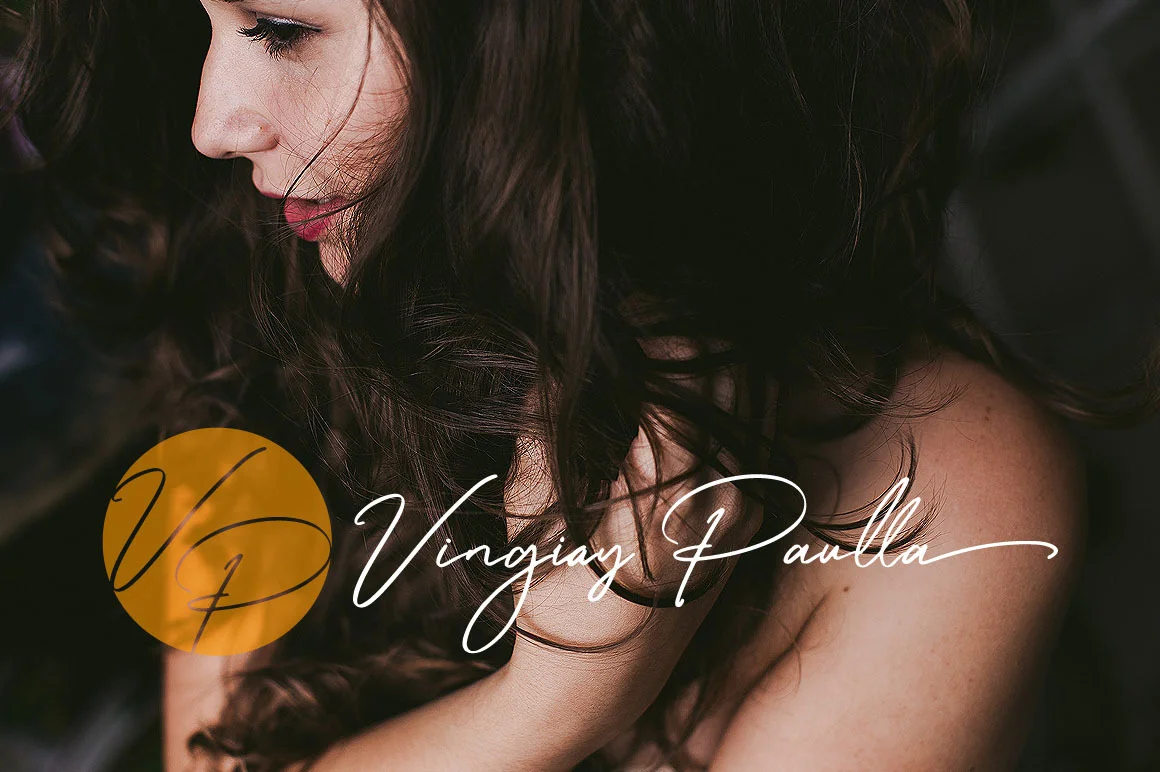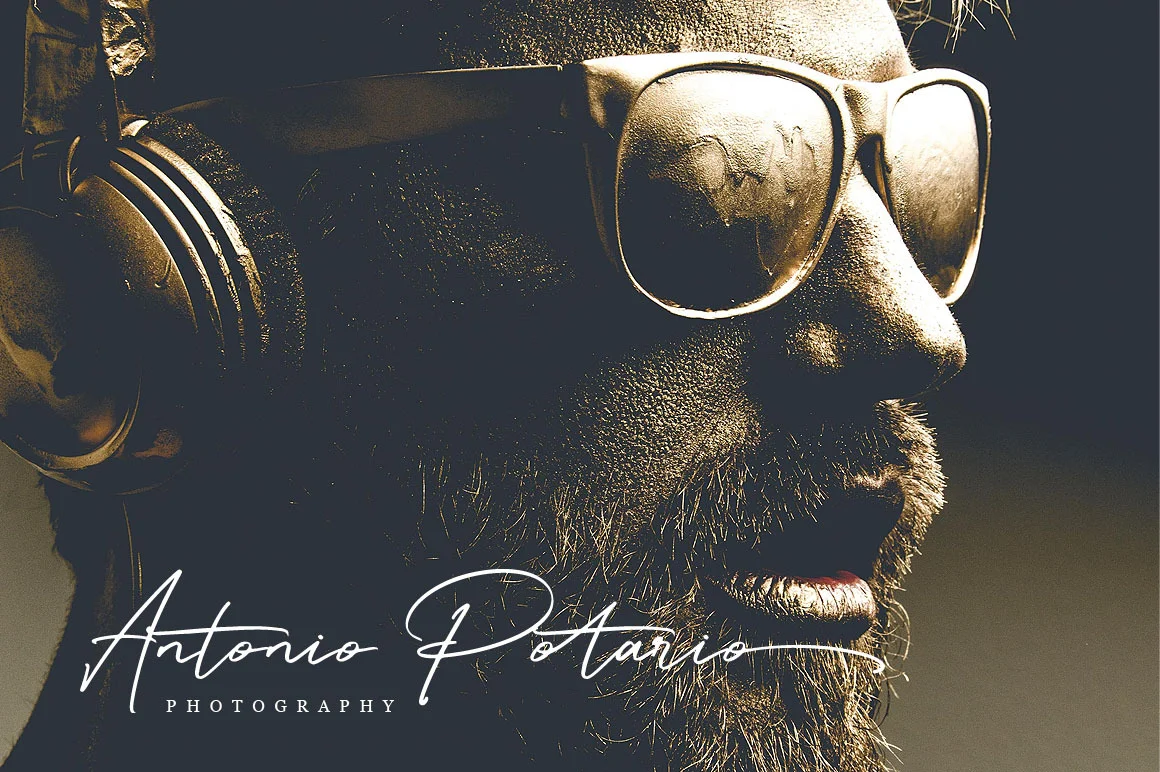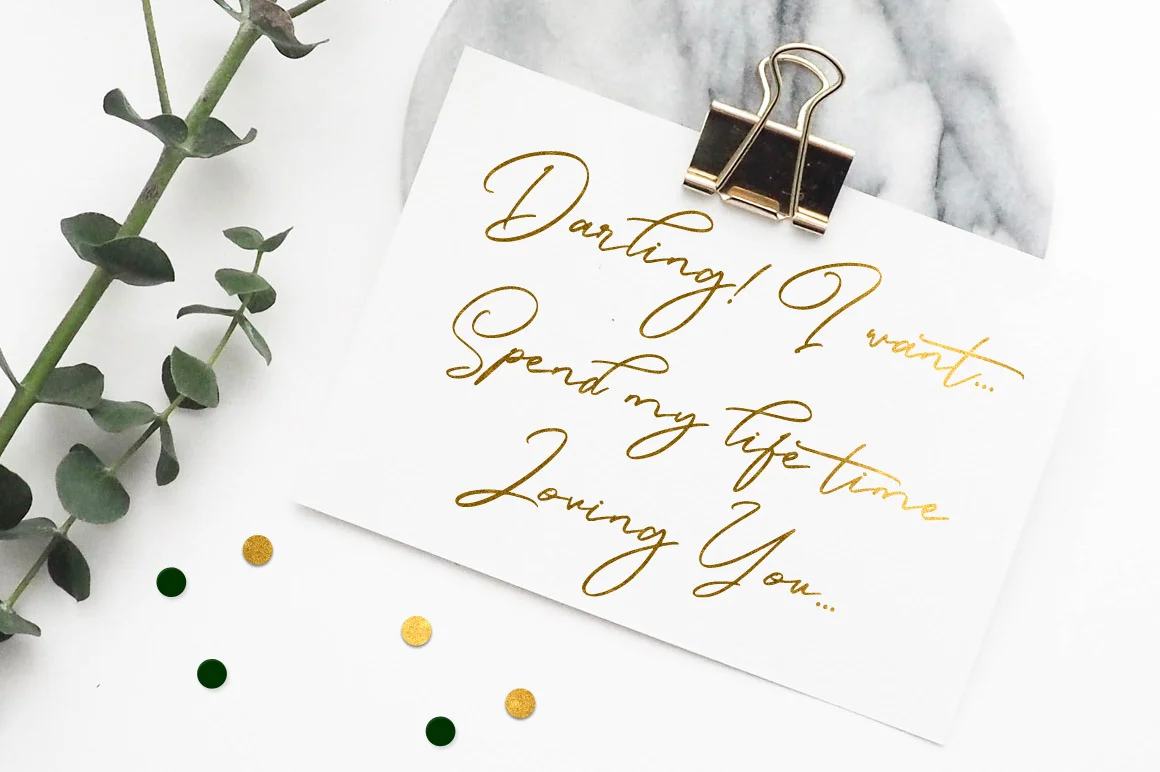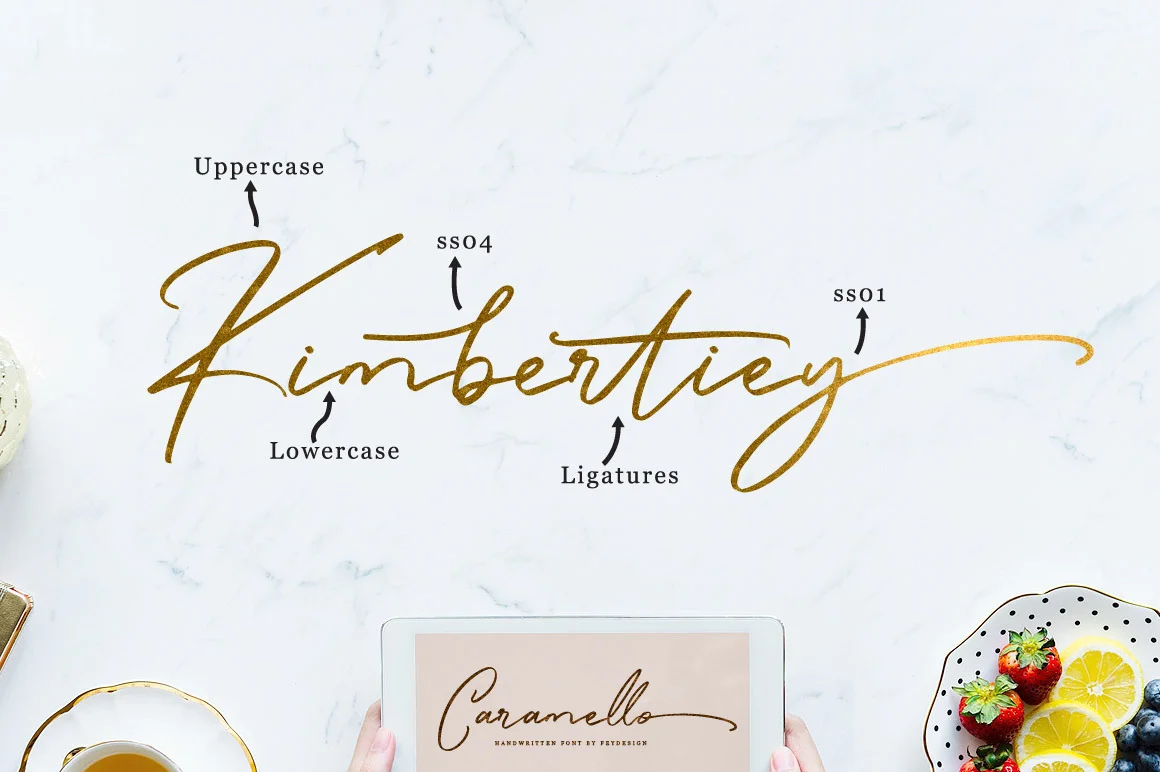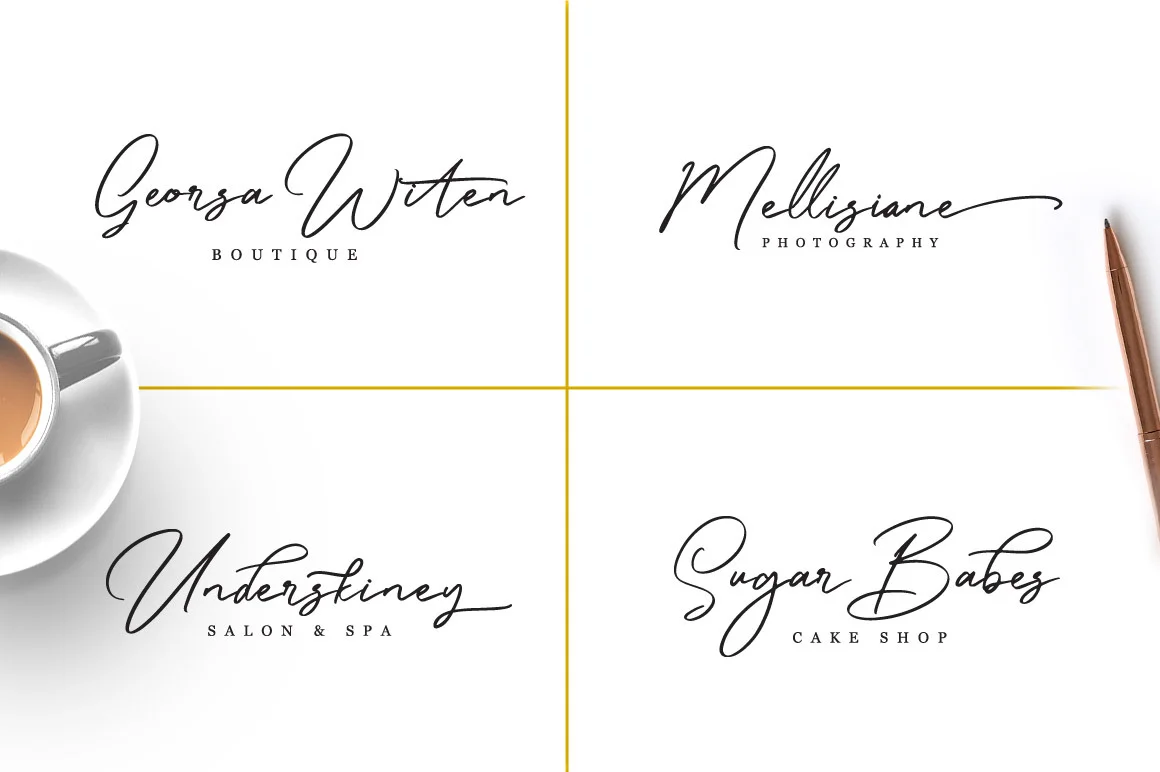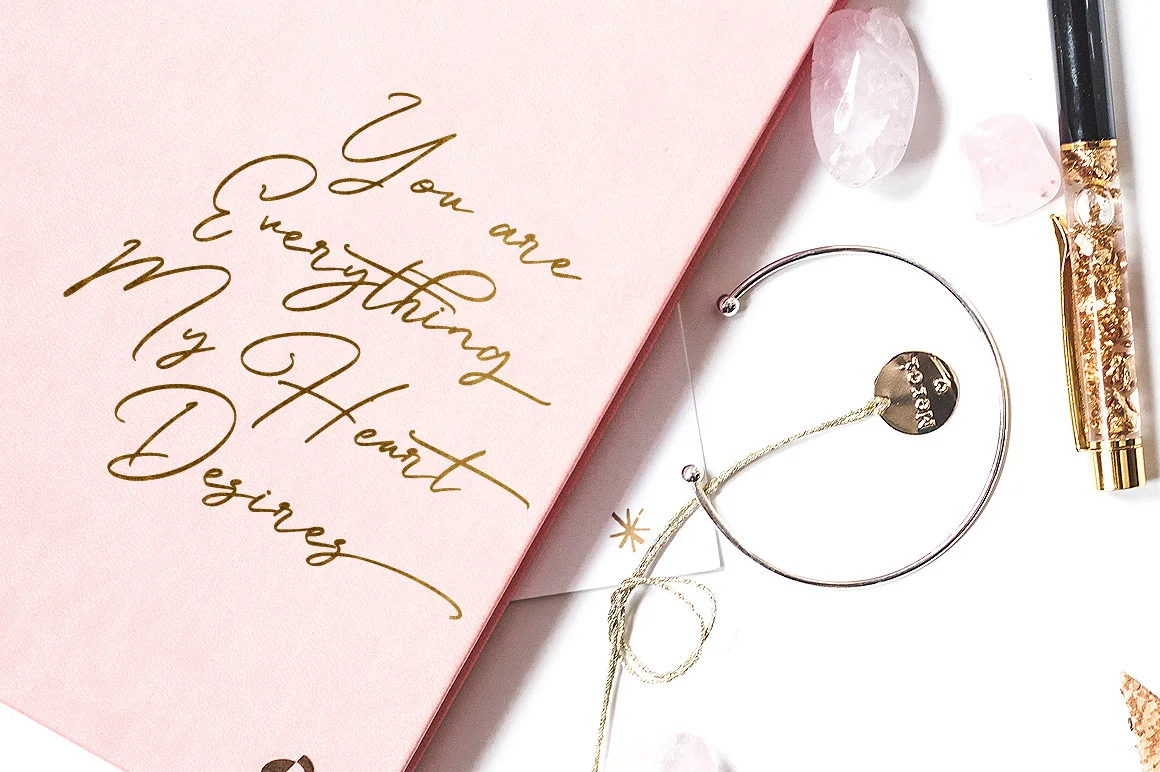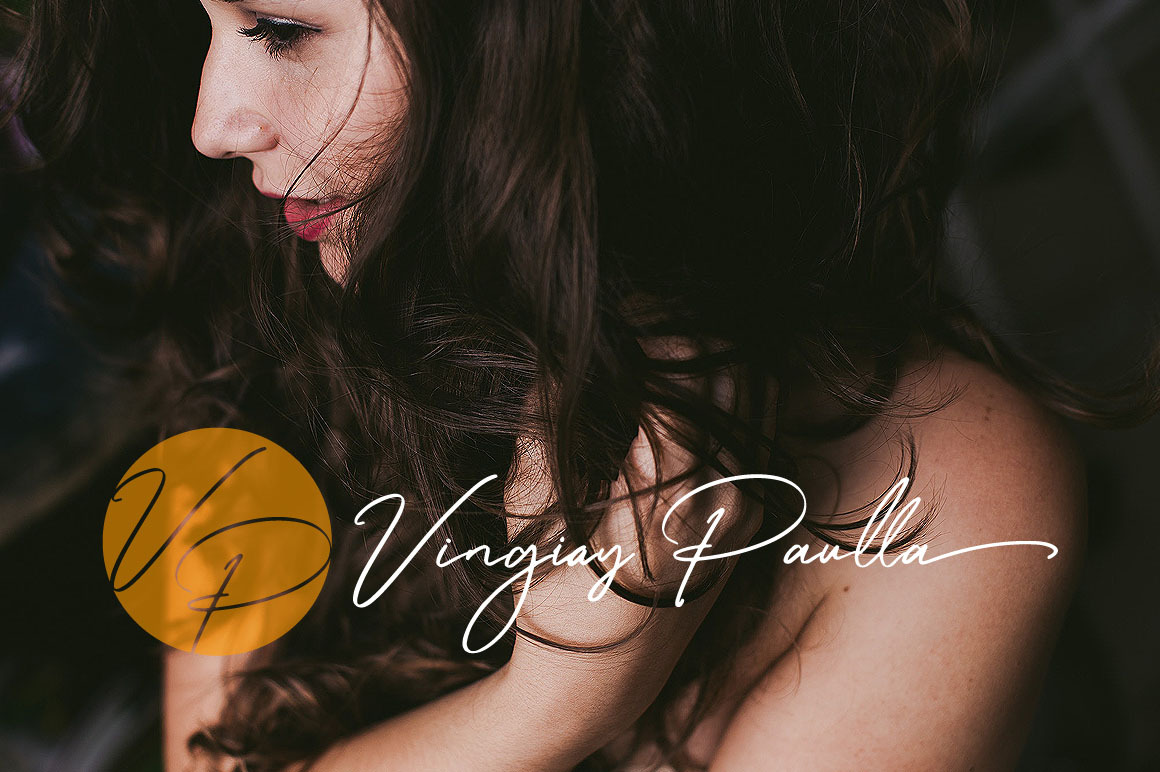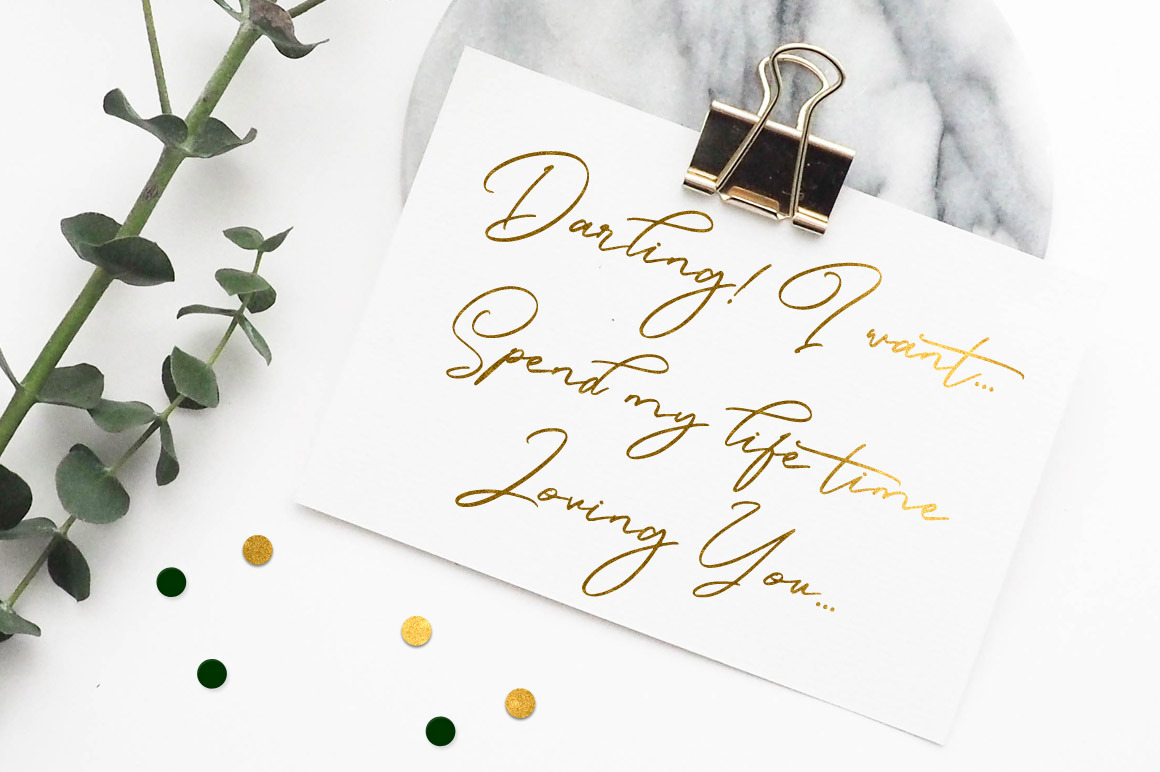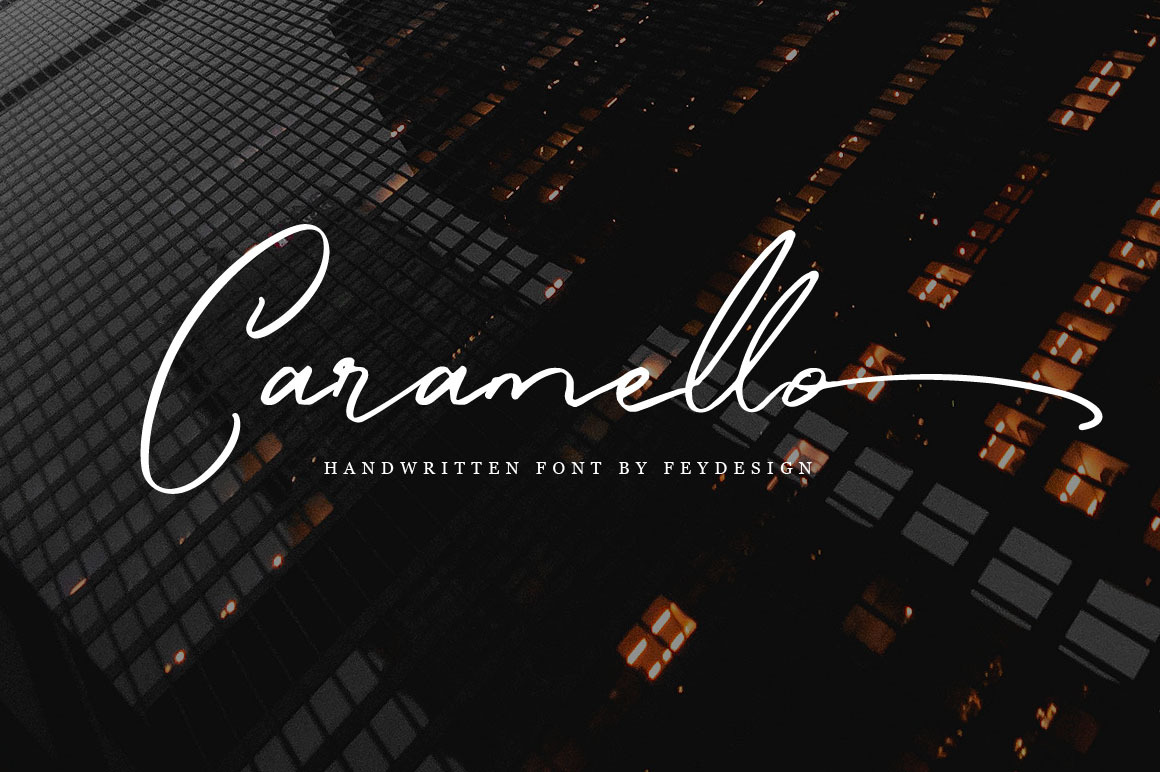
Caramello - Handwritting Script Font
Typography shapes perception at a subconscious level. Caramello - Handwritting Script leverages strong typographic hierarchy support to make every composition feel considered. The typeface brings an elegant, calligraphic sensibility to a broad range of creative disciplines, with consistent type colour across continuous text that holds up whether the work is print-first or screen-first.
In practice, Caramello - Handwritting Script proves particularly effective for social media graphics, signage systems, wedding invitations, beauty packaging, environmental graphics. Designers reaching for it find that the type decisions feel resolved rather than laboured — a useful quality when client timelines are tight.
The range of applications extends to perfume labels, product labels, annual reports, feminine branding. That breadth is deliberate: the proportions and spacing were stress-tested across a wide range of mock briefs before the typeface was finalised.
At smaller sizes the design retains its character without becoming cluttered. This resilience across scales makes Caramello - Handwritting Script equally suitable for a business card and a billboard — a useful property when assets must scale across a campaign.
In-house creative teams at consumer brands find Caramello - Handwritting Script a reliable choice for projects that demand both personality and restraint. The design avoids the self-conscious quirkiness that dates quickly, settling instead for considered distinctiveness that holds up over time.